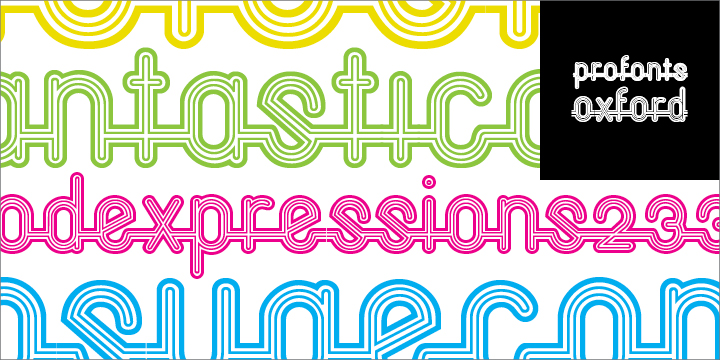
Oxford Font is perfect for academic publications, scholarly journals, university press books, educational institution branding, research paper layouts, intellectual property documentation, and prestigious academic conferences that require distinguished, scholarly typography.
This font is exciting because it embodies the intellectual gravitas and scholarly excellence of Oxford University traditions, featuring refined letterforms that convey academic authority, intellectual rigor, and the timeless pursuit of knowledge while maintaining exceptional readability for scholarly discourse.
The Oxford Font family includes light, regular, medium, and bold weights with italic variants, offering uppercase and lowercase letters, academic numerals, scholarly symbols, intellectual punctuation marks, and educational ornaments designed for prestigious academic applications.
Academic designers consistently choose Oxford Font Free Download for projects requiring scholarly authority and intellectual distinction. This distinguished typeface transforms educational communications into compelling statements of academic excellence that immediately resonate with scholars, researchers, and intellectual communities worldwide. The font's scholarly character makes it exceptionally effective for universities, research institutions, and academic publishers where intellectual credibility and scholarly tradition must be communicated through every printed word and digital presentation. Its Oxford heritage bridges centuries of academic excellence with contemporary educational publishing standards, making it invaluable for institutions celebrating intellectual achievement and scholarly pursuit. The elegantly crafted letterforms maintain their academic dignity across peer-reviewed journals and digital learning platforms, ensuring consistent brand recognition and scholarly authority. Whether you're developing university brand identities, creating academic conference materials, or designing scholarly publication systems, this typeface provides the intellectual voice and visual prestige that distinguishes serious academic institutions from commercial education providers, establishing immediate respect among scholarly communities who appreciate the enduring traditions of academic excellence and expect the highest standards of intellectual presentation in their research publications and educational discourse.